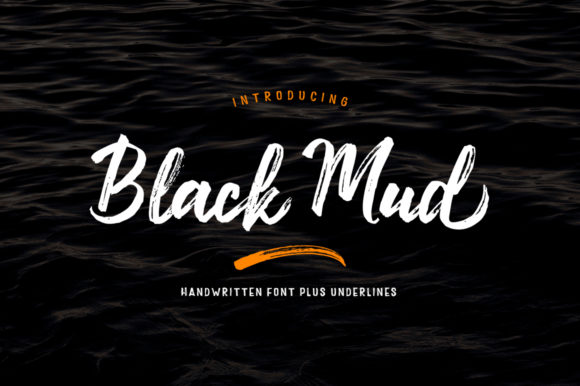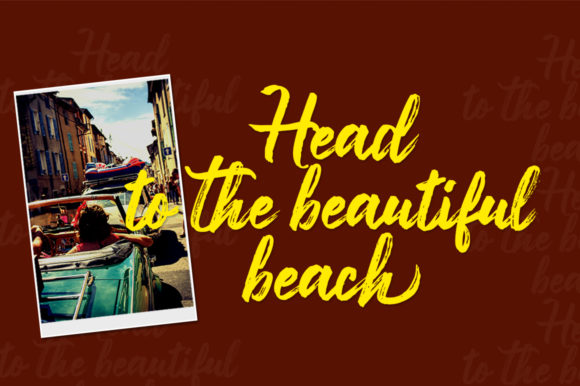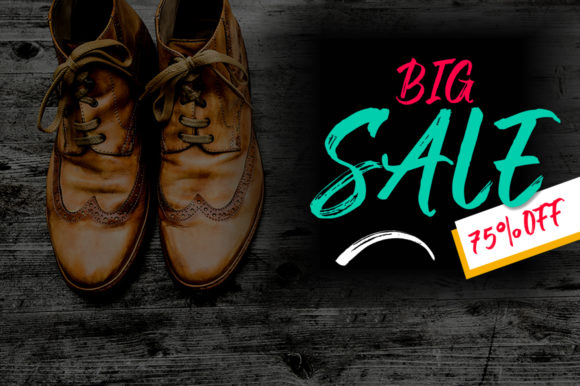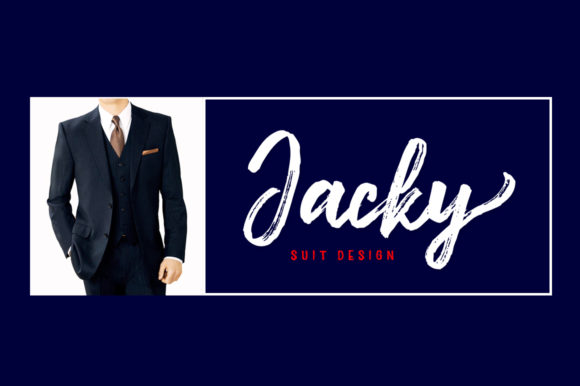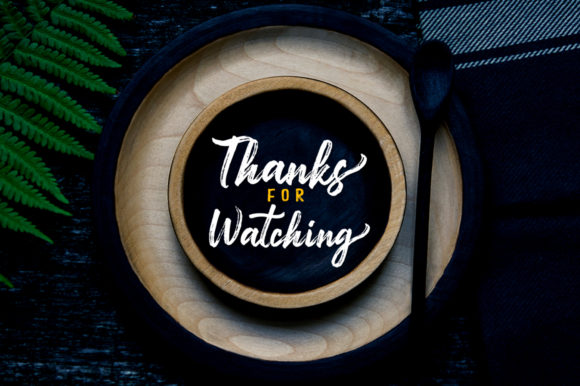
Black Mud Font
About Black Mud Font
Black Mud results out of a stunning pairing of a brush pen and pencil. This handwritten font looks both distinct and elegant and fits a wide variety of designs. Fall in love with its incredibly versatile style and use it to create spectacular designs!